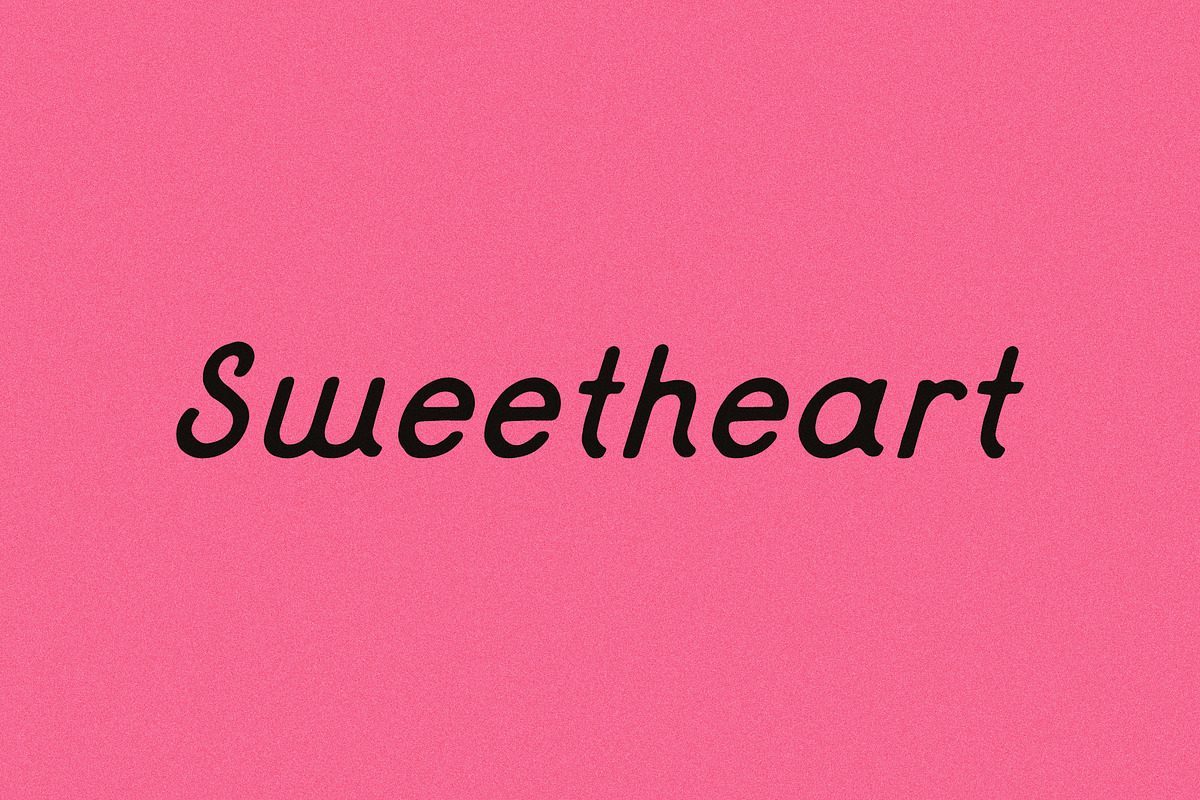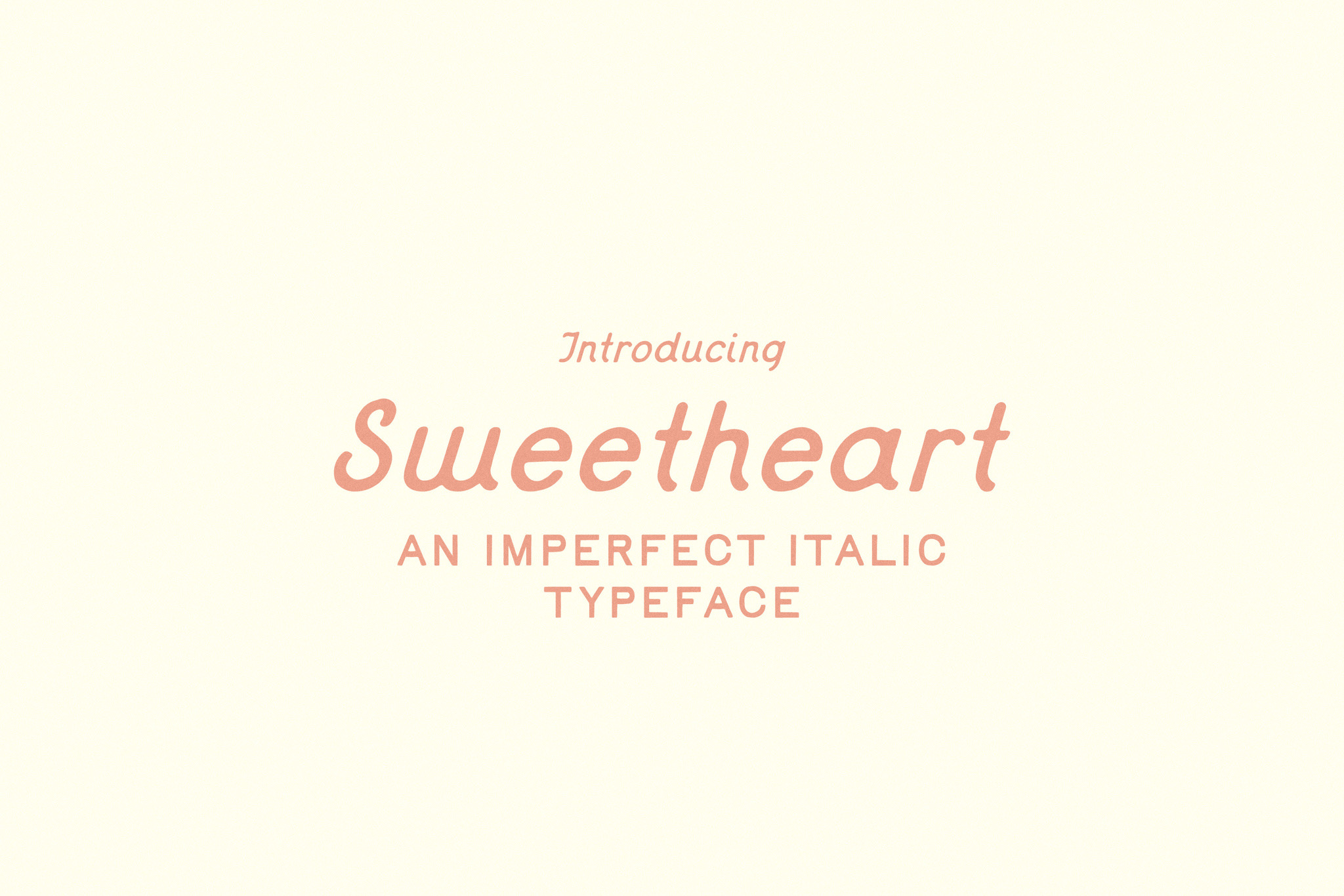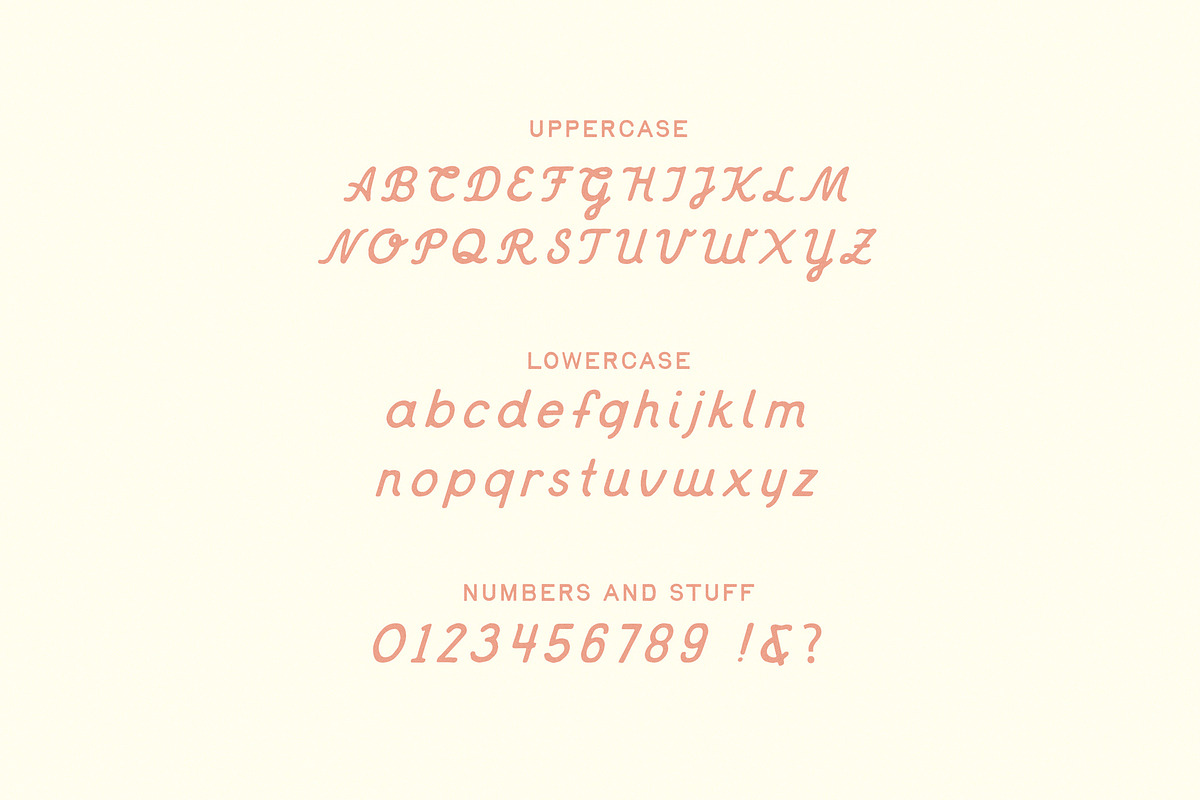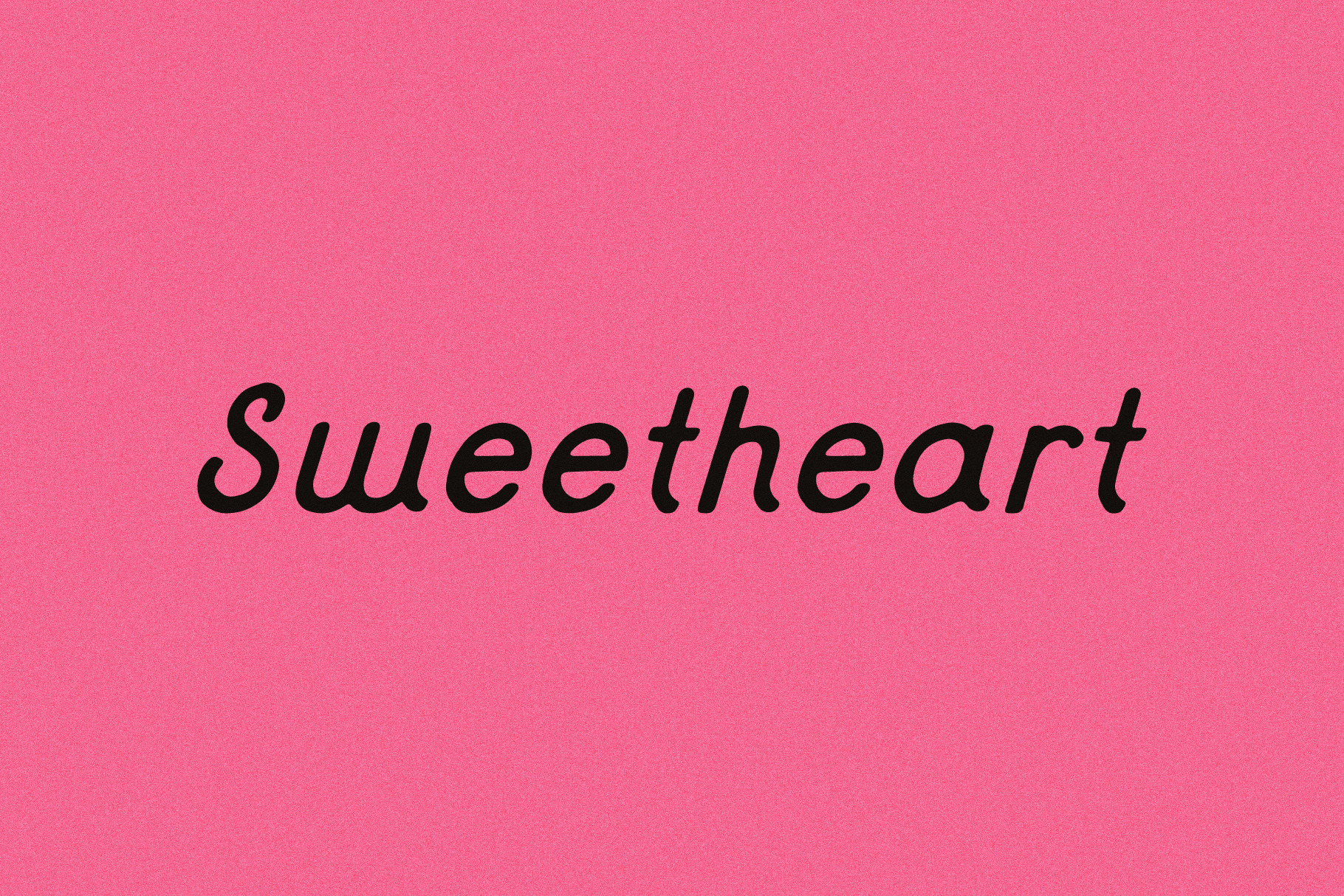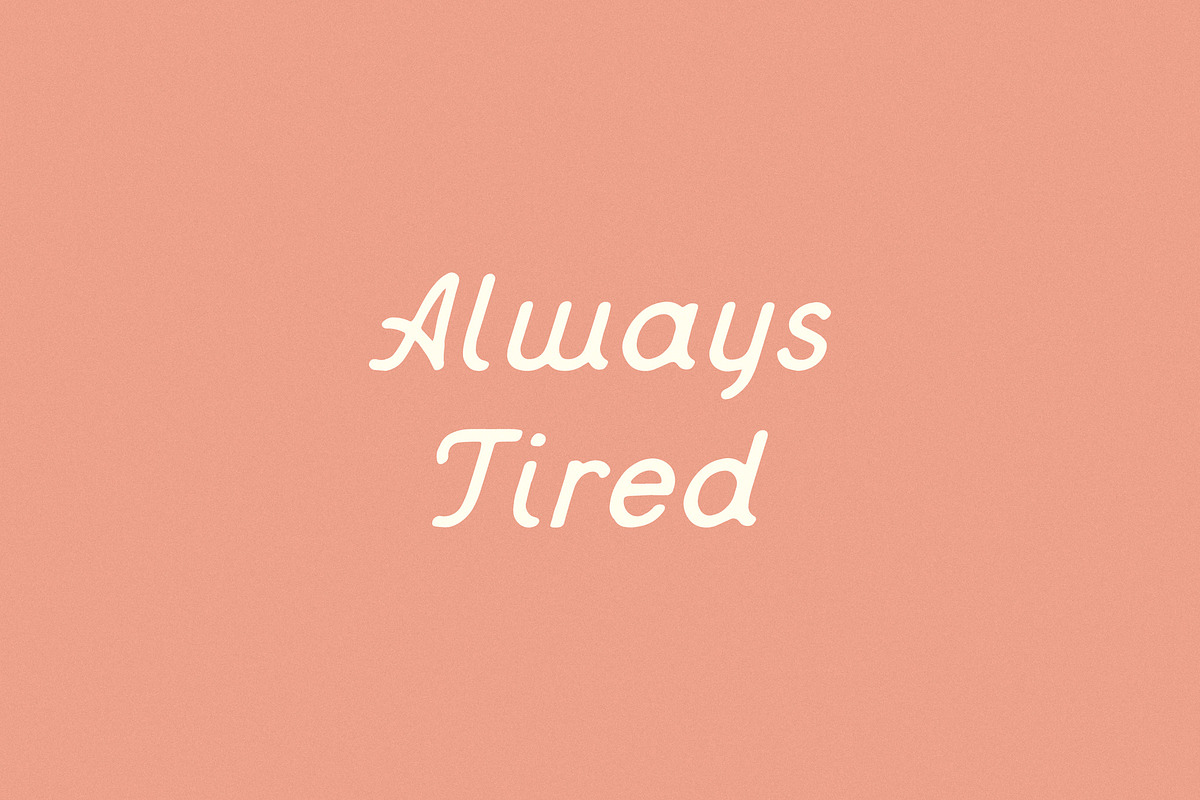
Sweetheart | Handmade Italic Font
Looks like it means it.
Sweetheart is a handwritten italic typeface pulled from the margins of an old love note. Loosely drawn, a little uneven, and more sincere than polished. Great for when you want something that feels personal but not overly precious.
Basic Latin support with a limited set of accented characters.